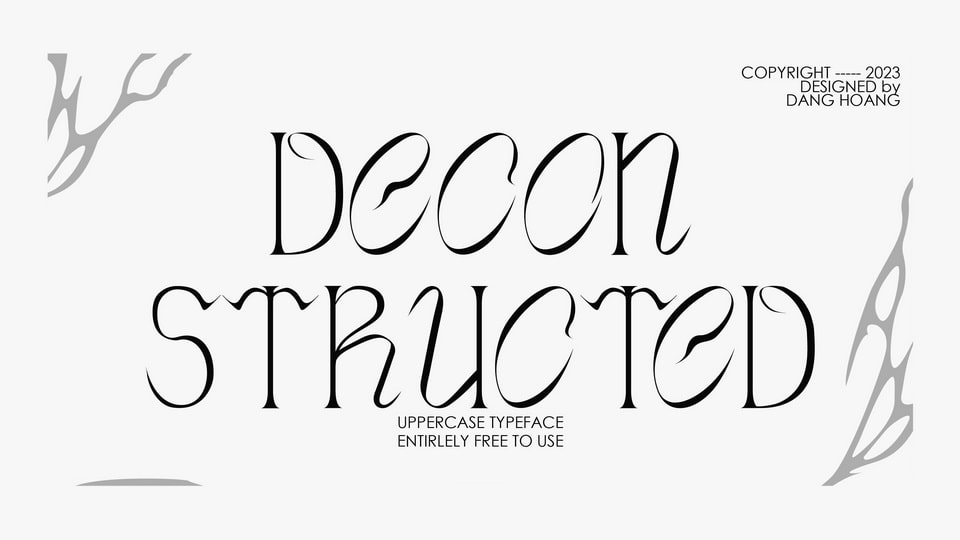
Download Deconstructed font, a modern display typeface with smooth curves and sharp serifs. Its elegant and sophisticated appearance makes Deconstructed font perfect for editorial and display use.